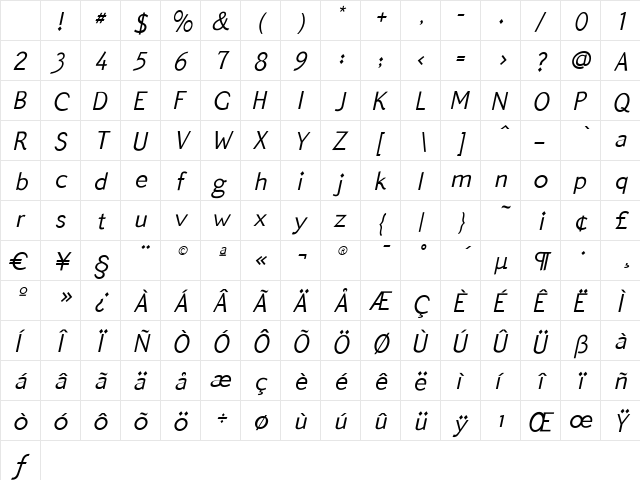
Complete QuickType Sans Italic glyph index. Displaying only characters natively supported by QuickType Sans Italic font.
QuickType Sans is a composed and adaptable typeface that performs quietly and consistently across a wide range of design contexts. The slanted form adds forward momentum and visual energy.
Pro Tip: Use QuickType Sans for emphasis, pull quotes, and subheadings where its slanted energy can add rhythm to the layout.